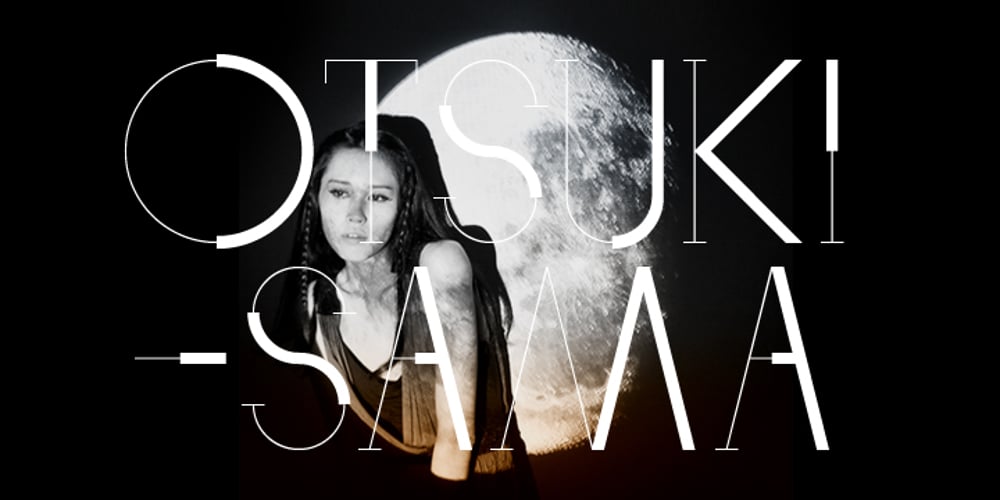
Otsuki Sama Font Family was designed by Julien Mercier and published by Julmeme. Otsuki Sama contains 2 styles and family package options. Otsuki-Sama is a sophisticated mix between a serif and sans serif font design. Its elegant balance between heavy contours and subtle lines gives it a modern yet very rich look. Applicable for any type of graphic design, especially for headlines, posters and magazines.